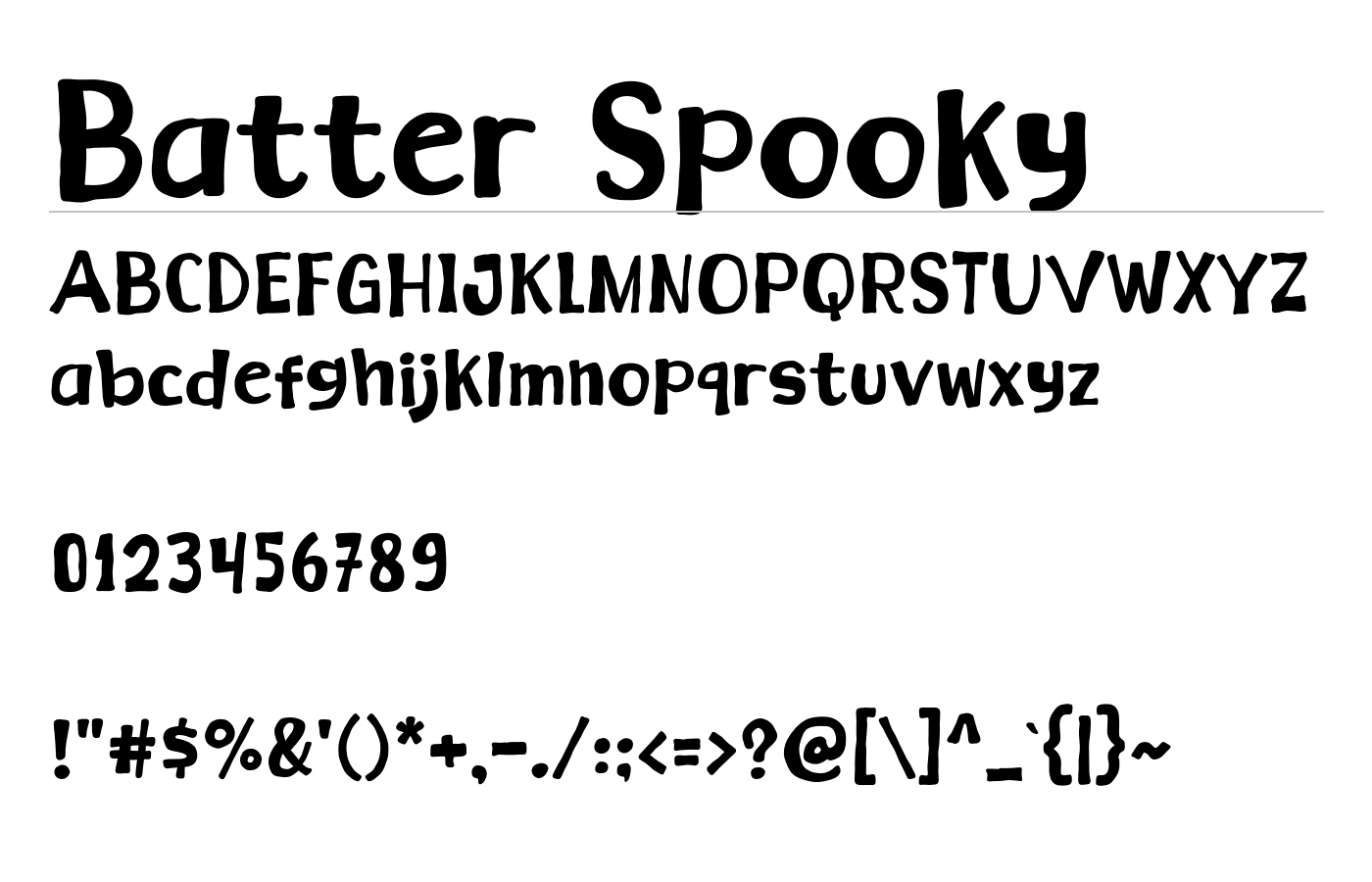
Batter Spooky is a playful, hand-drawn sans serif font with irregular, slightly quirky letterforms that give it a fun and casual vibe. Its medium weight, modest contrast, and uneven strokes create a lively, imperfect feel perfect for Halloween themes, children's projects, or any design needing a spooky yet approachable personality. This font works well for headlines, posters, and creative branding where a friendly but eerie touch is desired.
Batter Spooky Font
About Batter Spooky Font
| Font family | Batter Spooky Font |
| Designer | Khurasan & Jalembe |